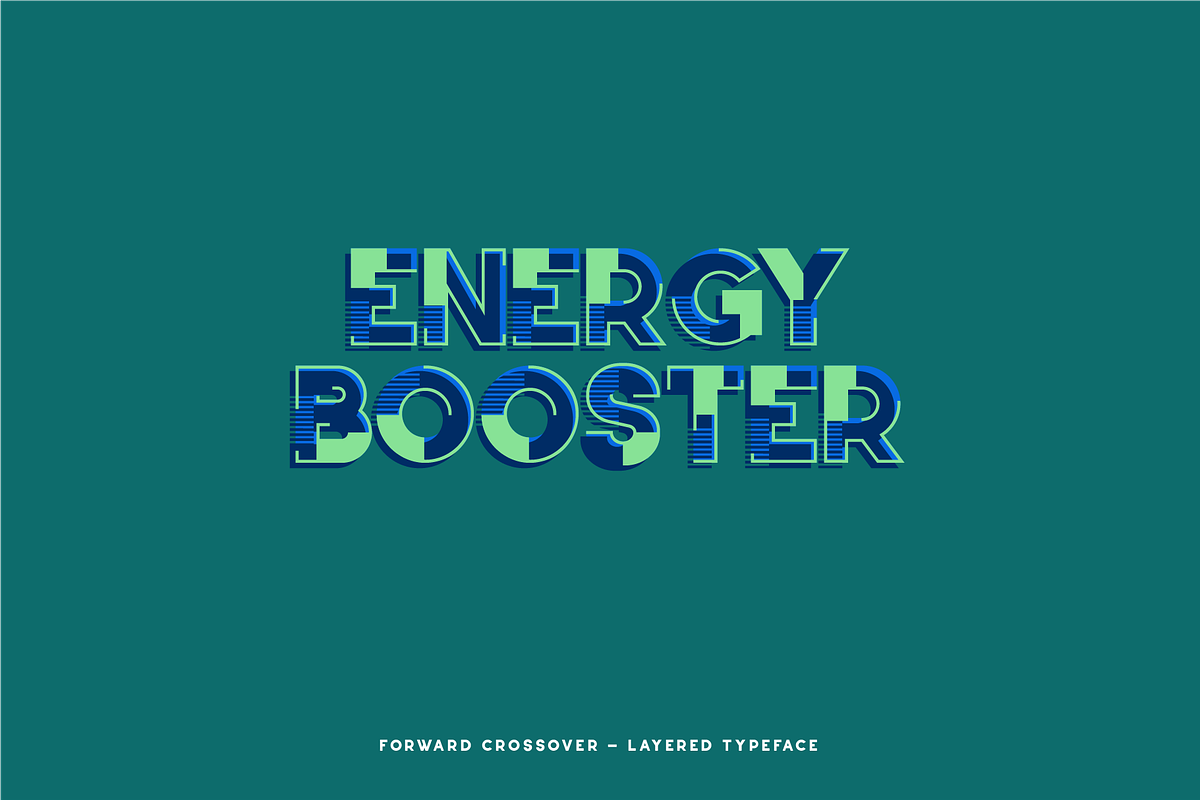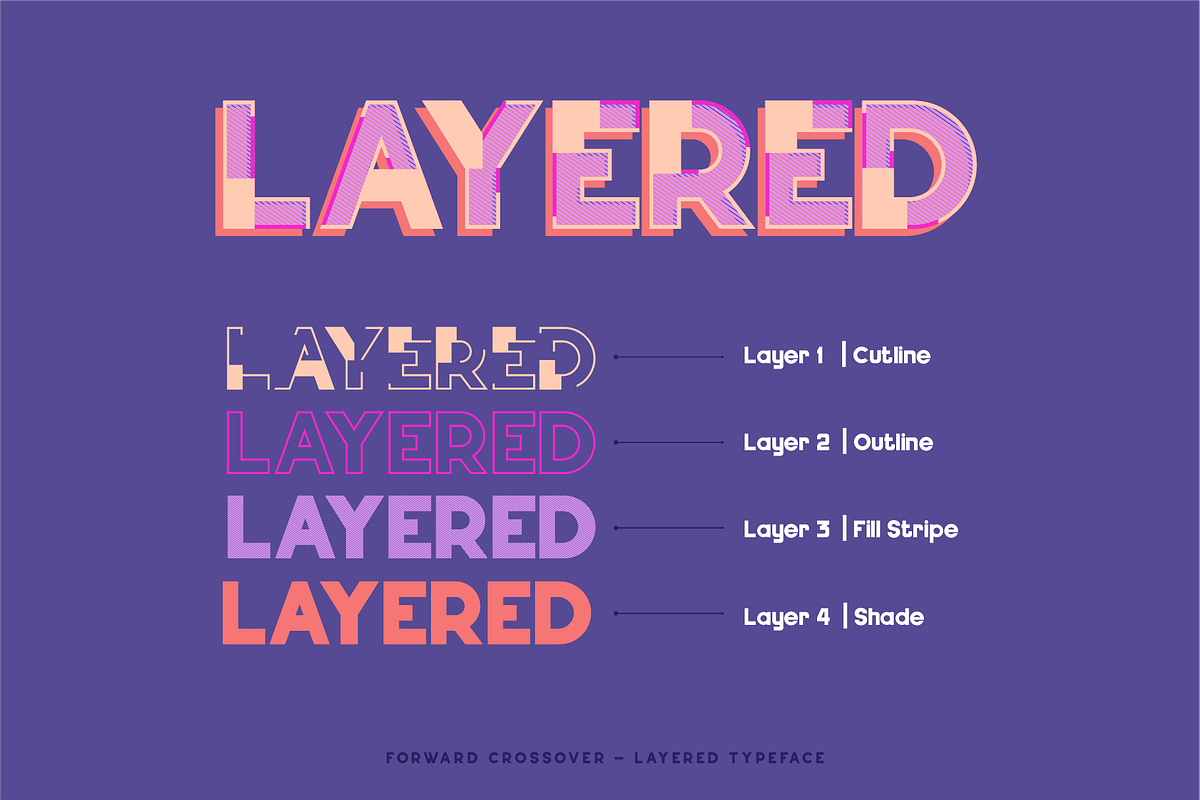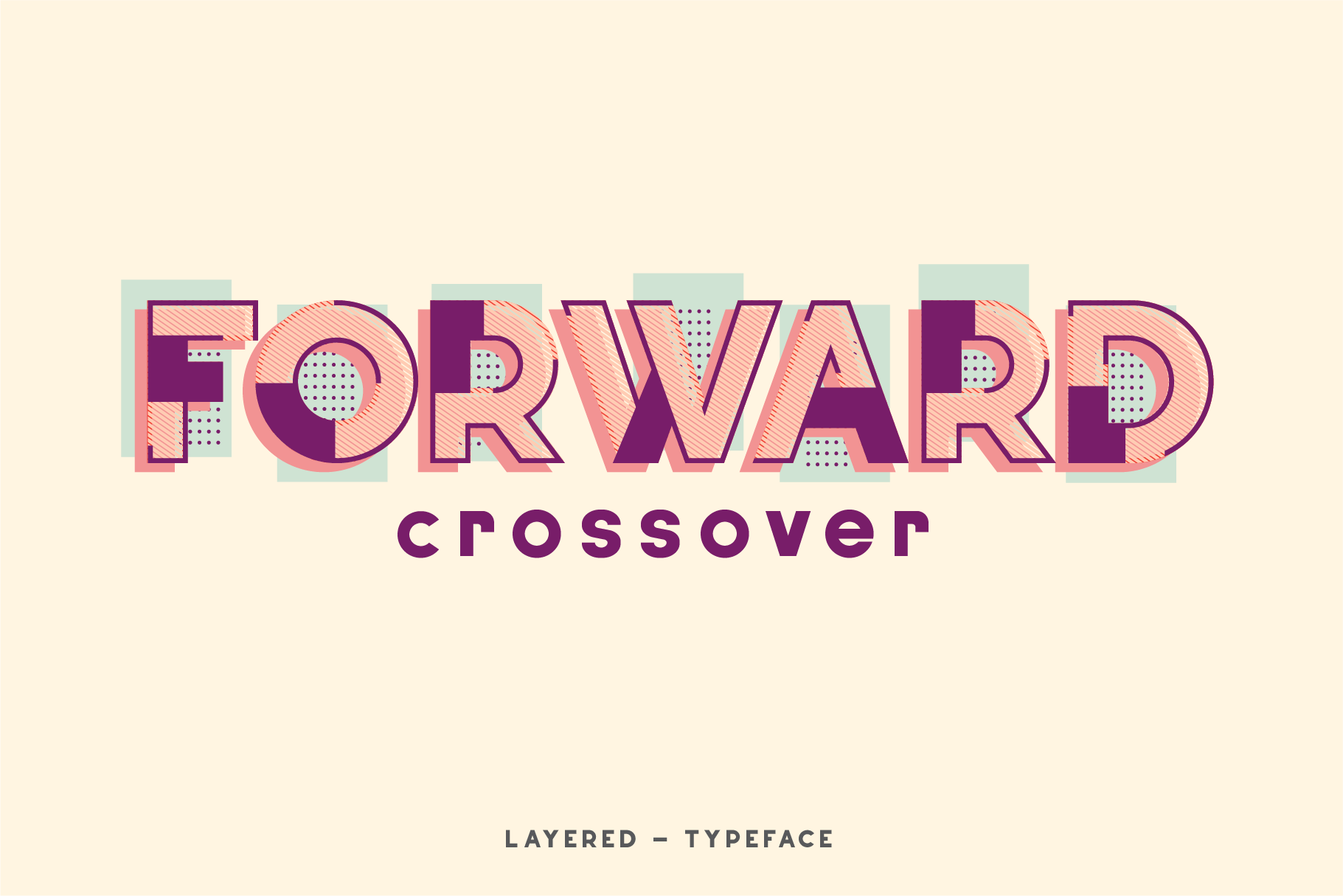
Forward Crossover - layered typeface
Forward Crossover came with layered typeface and it is open type. This typeface have many variations and combinations style you can play with, you can use it in layer appllications such as adobe illustrator, adobe photosop or simillar software. this typeface will be suit for logo, headings, branding, magazine, cover album, book cover, game title, apparel design, quotes, invitations, flyer, poster, greeting cards, product packaging, printed quotes, etc.